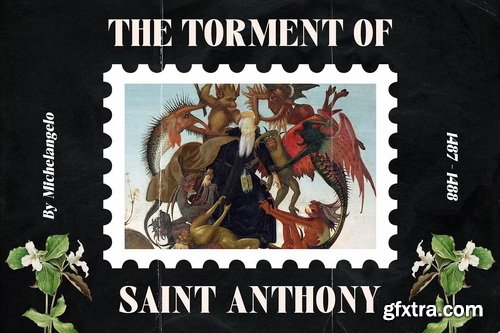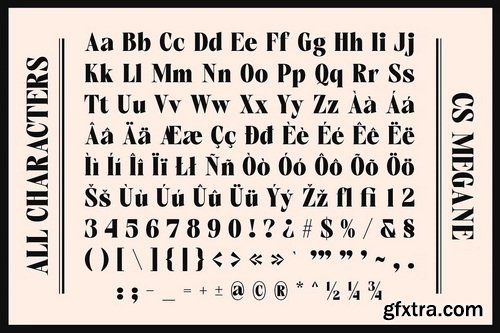
CreativeMarket - CS Megane – Bold Font
Modern Classic Serif with a Luxurious Presence CS Megane is a bold serif font that seamlessly blends traditional luxury with contemporary boldness. Its sophisticated letterforms exude confidence and refinement, making it a perfect choice for high-end branding, elegant typography, and impactful visual communication. With a commanding presence, it balances classic elegance with modern strength, ideal for creating timeless yet fresh designs.